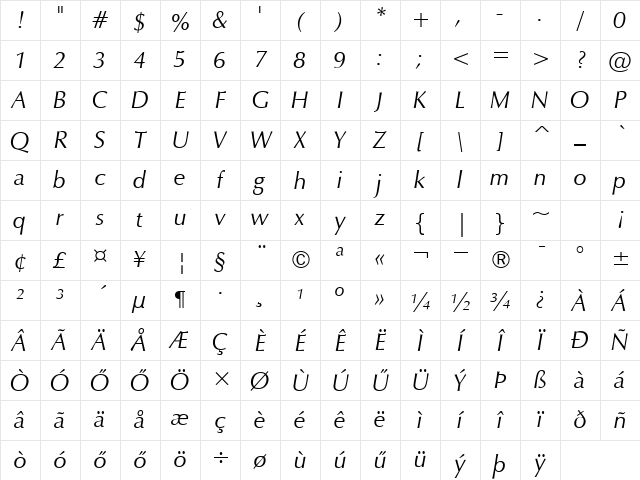
H_Zapf Humanist 601 BT Italic
H_Zapf Humanist 601 BT Family
H_Zapf Humanist 601 BT Italic
Design Context for H_Zapf Humanist 601 BT
H_Zapf Humanist 601 BT is a composed and adaptable typeface that performs quietly and consistently across a wide range of design contexts. The slanted form adds forward momentum and visual energy.